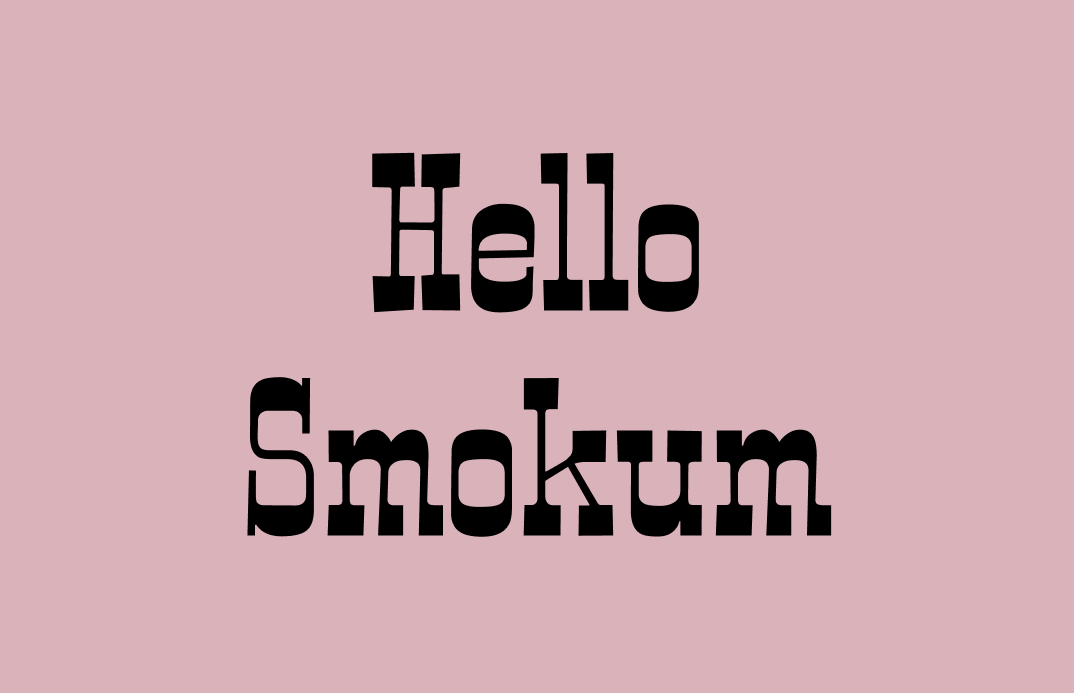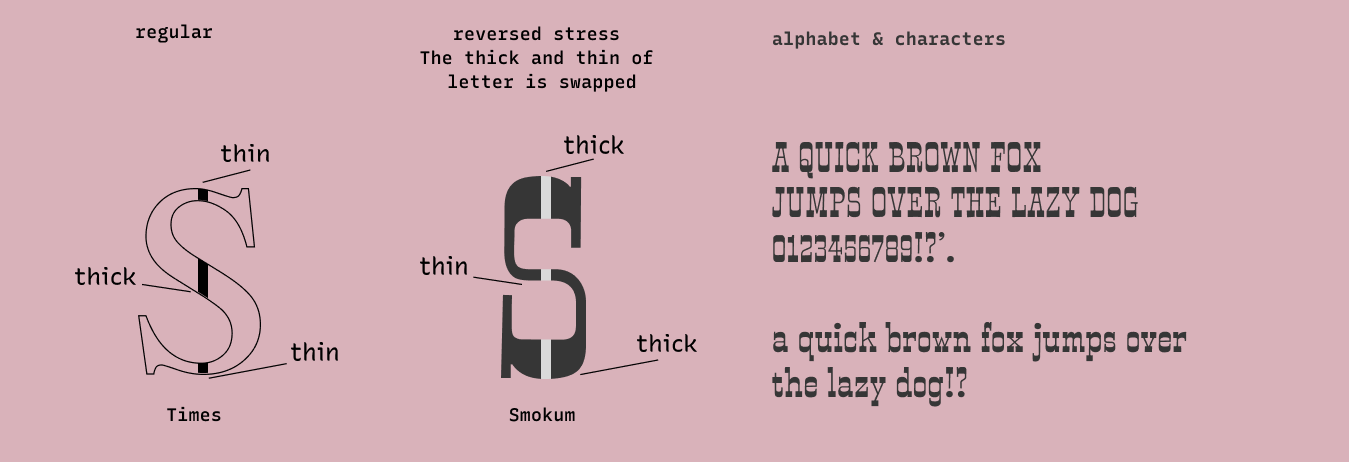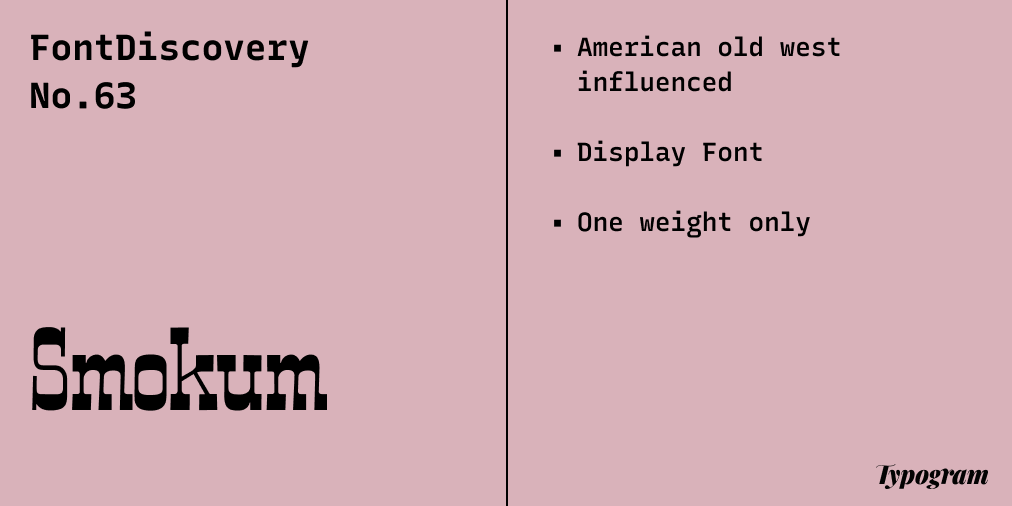
Font of the Week: Smokum
What is a Western-style font?
Specific fonts remind us distinctively of American Old West. These decorative, bold styles with heavy serifs are found in western movies, restaurant signage, and wanted posters. Many are also “Wood Type, ” letters curved on a woodblock, then used on a letterpress. Looking at them brought memories of wagons, cowboys, dusty trails, and horsebacks.
Smokum has the charm of this Old West style. It resembles something seen on a wanted poster from a western flick or at your local barbeque joint.
Font Detail
Reverse stress
Large stroke contrast
One weight only
Specific Usage Tips
How to use Smokum for logos?
Because Smokum has a significant stroke variation, the thinnest part of the letter breaks down when the logo is displayed at a smaller scale. Therefore, it is not suitable for logos at its original design.
How to use Smokum for marketing and branding?
Smokum is a display font excellent for attention-demanding graphics. Though it is Old West influenced, it can be used for other things, as long as it is appropriate for the content’s tone. For example, it is not appropriate for serious subjects, like news headlines. Also, avoid using it for paragraphs because it is not for text.